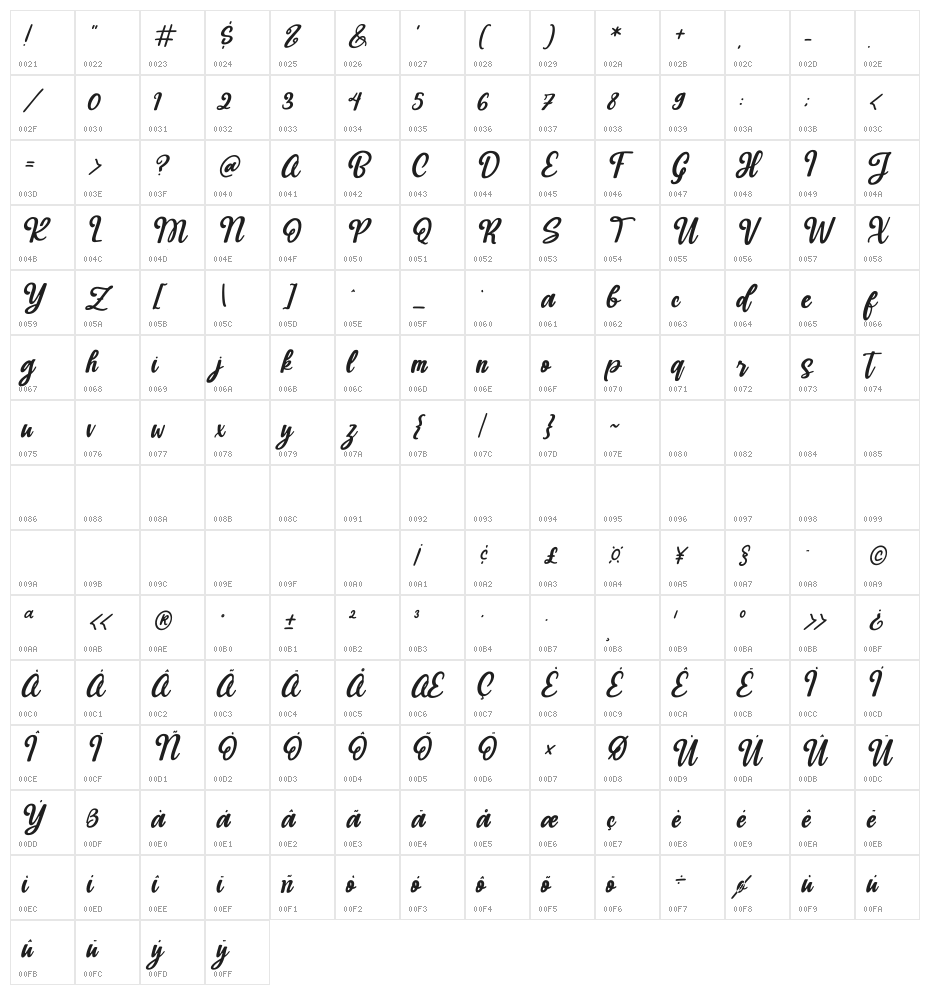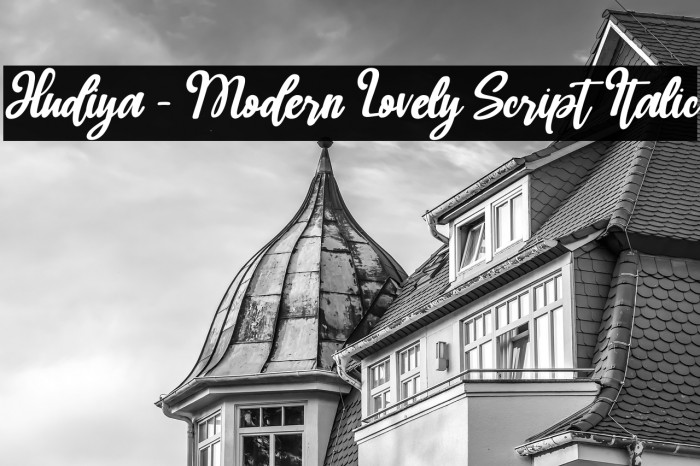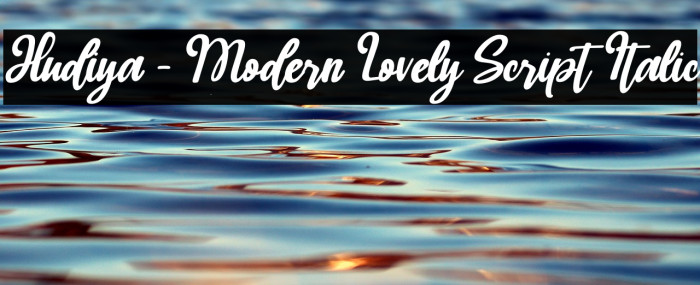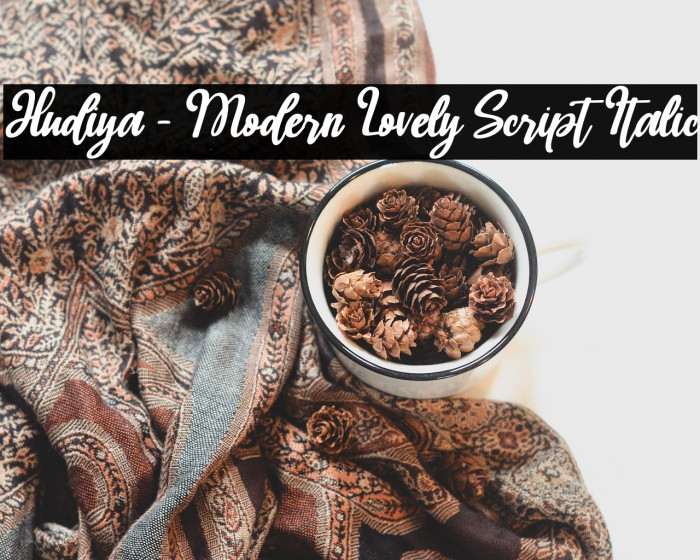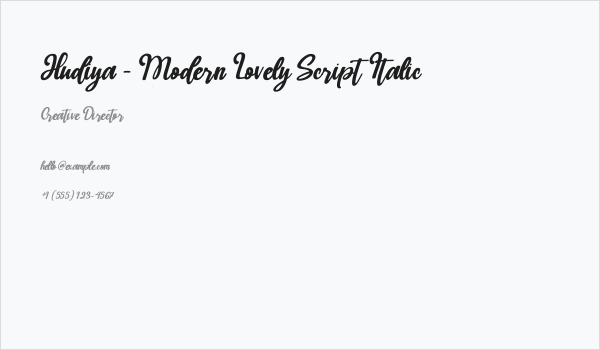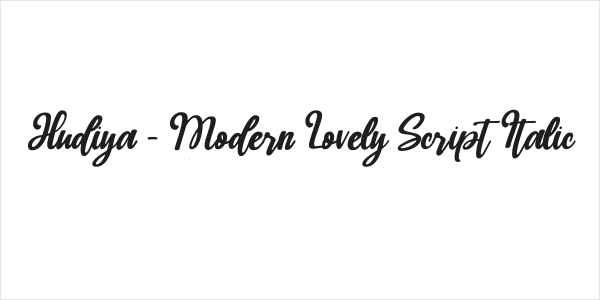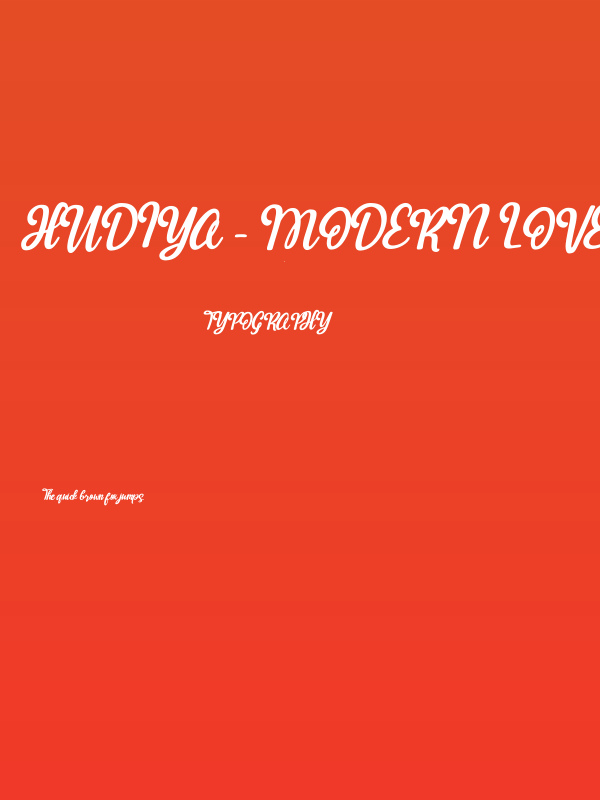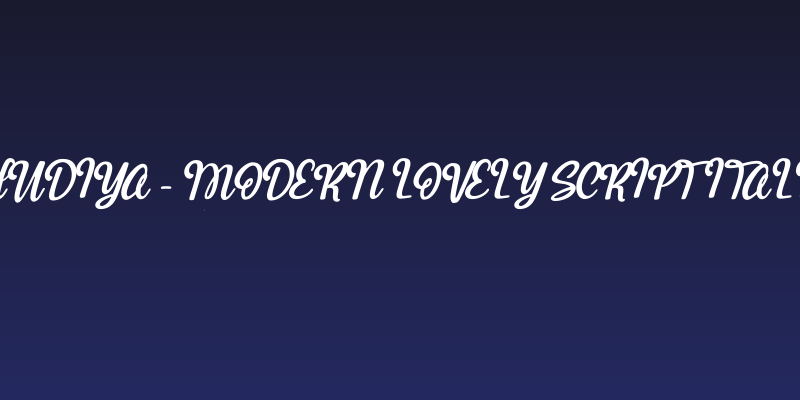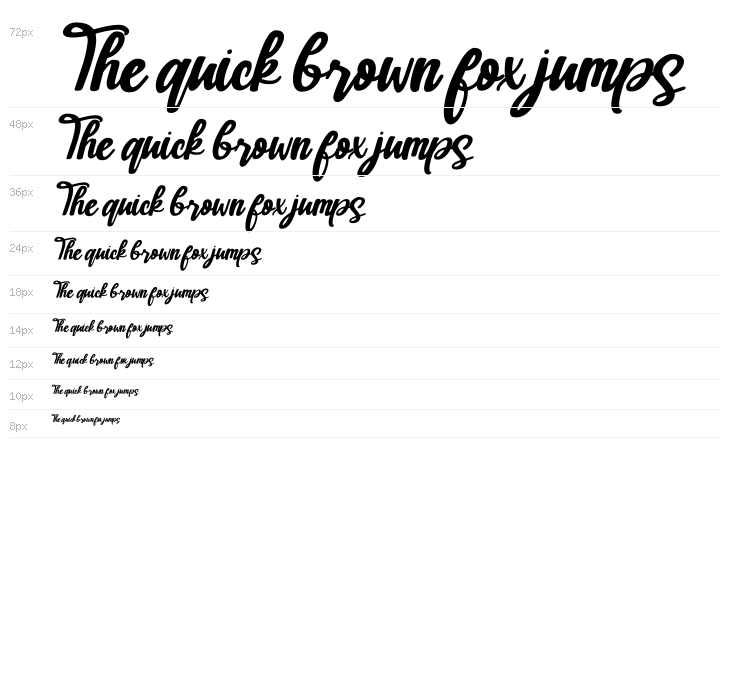
Hudiya - Modern Lovely Script Italic Font
Hudiya - Modern Lovely Script Italic Description
This font features a modern and lovely script style with a flowing, cursive design. The characters are connected, creating a seamless and elegant appearance. The uppercase letters are bold and prominent, while the lowercase letters maintain a consistent flow, enhancing readability. The numerals and special characters are designed to match the script's fluidity, making them suitable for decorative purposes. The italic slant adds a dynamic and stylish touch, perfect for projects that require a personal and artistic feel.